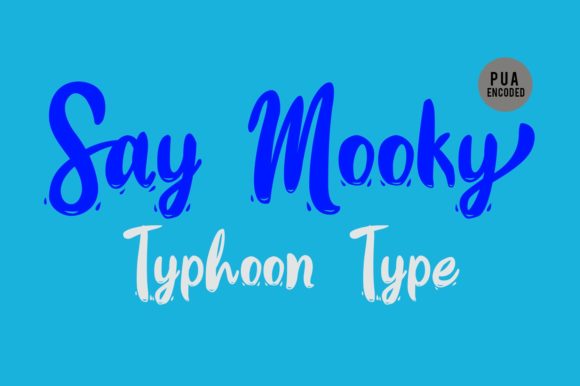
Introduction to Say Mooky Font Font
Fonts play a crucial role in design, and the Say Mooky Font font is a typeface that brings both character and versatility to any project. Whether you’re working on a branding project, a website, or a print design, the Say Mooky Font font offers a unique style that can elevate your work.
Say Mooky is a gorgeous and fresh script that radiates life.
Ignite your creativity with this powerful and dynamic looking script .
Key Features of Say Mooky Font Font
Why Choose Say Mooky Font Font?
The Say Mooky Font font is more than just a typeface – it’s a design tool that helps you communicate your message with style and clarity. Its unique character set and versatile design make it suitable for a wide range of applications, from elegant invitations to bold headlines.
With its carefully crafted letterforms and balanced proportions, the Say Mooky Font font ensures readability and visual appeal across all mediums.
What makes Say Mooky Font font special?
The Say Mooky Font font stands out with its unique design, exceptional readability, and versatility across various design applications.